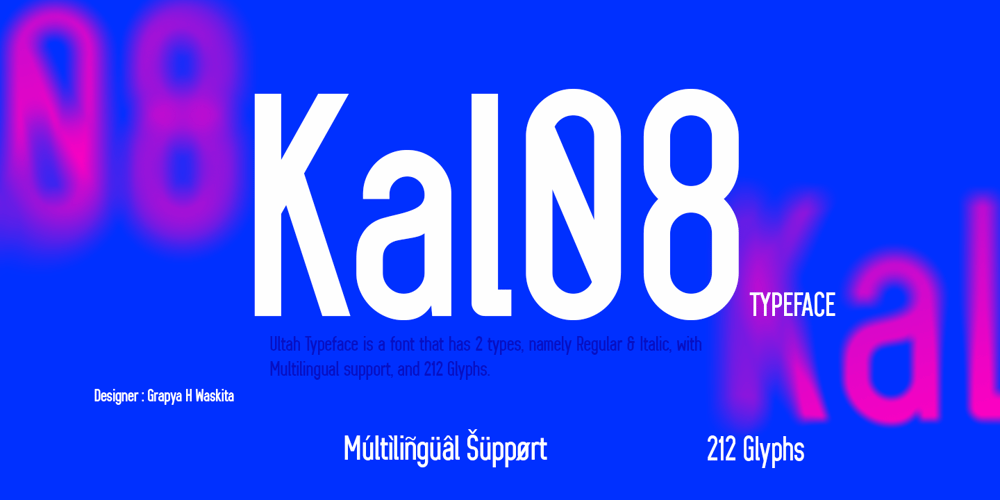
Kal08 Font Family was designed by GRAPYA H WASKITA and published by Solokarir. Kal08 contains 2 styles and family package options. Kal08 is a Sans Serif Font, this font consists of Uppercase, Lowercase Letters & multilingual support. Kal08 is perfect for Logotype, Print Design, labels, Products, Text, and more.